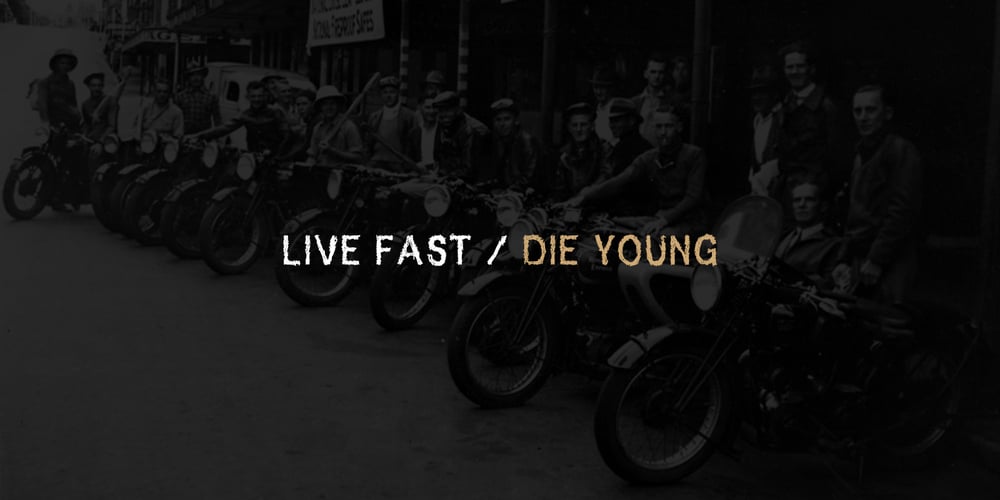
Supernational 264
Supernational 264 font
Supernational 264 Font Family was designed by David Alexander Slaager and published by Fonts of Chaos. Supernational 264 contains 1 styles and family package options. Grand brother of Super National in extra bold. Looks nice in all size.